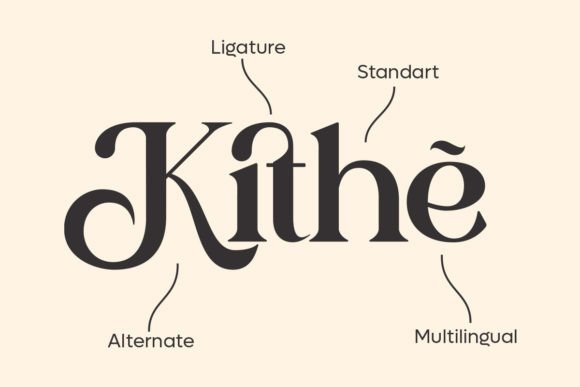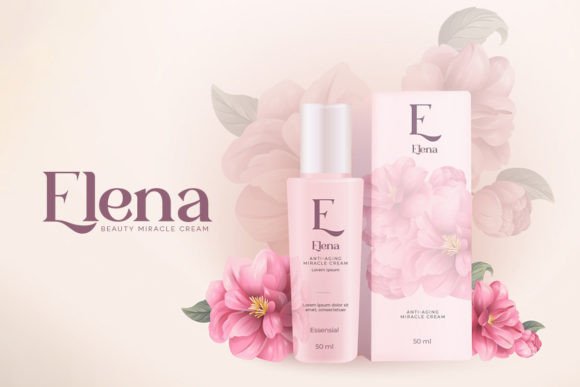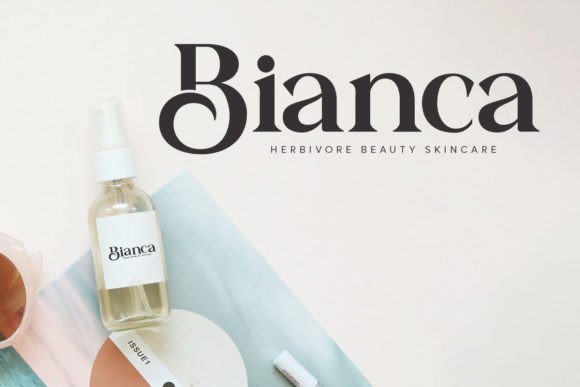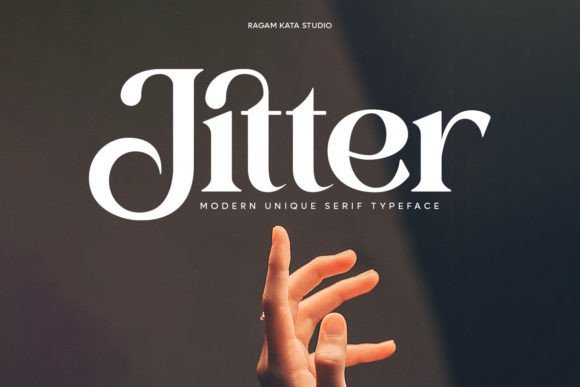
Introduction to Jitter Font
Jitter is a beautiful modern serif typeface.
It is perfect for elegant & luxurious logos, magazines, fashion brands, cosmetic brand, fashion promotions, modern advertising designs, invitation cards, art quotes, home decoration , book/cover titles, special events, and much more .